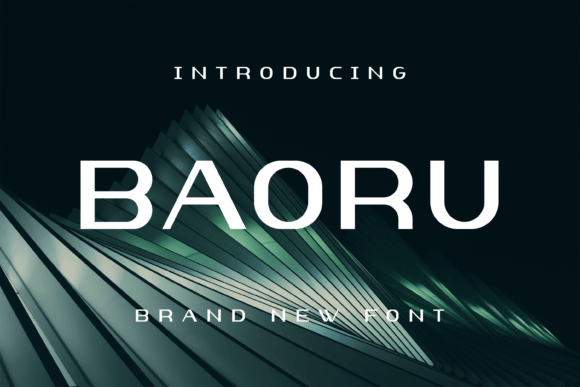
Unlock the Power of Baoru Font
You know that feeling when you’re working on a project and the perfect font just clicks? It’s like the entire design comes together, and you can’t imagine it any other way. For many designers, this moment is a game-changer – and it’s exactly what the Baoru Font is designed to deliver.
Baoru Font is a sleek and modern sans serif font that’s perfect for any project, from logos and branding to digital interfaces and publications. Its clean lines and versatile design make it an incredible asset to your font library, elevating your creations and taking them to the next level.
Whether you’re a seasoned designer or just starting out, Baoru Font is a valuable addition to your toolkit. Its ability to adapt to any style or theme makes it a go-to choice for designers looking to add a touch of sophistication and modernity to their work.
Baoru Font Key Features
- Font Family: Baoru Font is a sans-serif font family designed for modern and elegant typography.
- Size: Baoru Font comes in 8 font weights, ranging from Light to ExtraBold, to cater to diverse design needs.
- Unique Characteristic: The font features a unique blend of geometric and organic elements, resulting in a distinctive and modern aesthetic.
- Resolution: Baoru Font is designed for high-resolution displays, ensuring crisp and clear typography on screens and in print.
- Language Support: The font family supports multiple languages, including Latin, Cyrillic, and Greek scripts, making it a versatile choice for global designs.
Baoru Font Review
Overall, I’d say the Baoru font is a solid choice for designers looking for a modern, minimalist sans-serif font. It’s clean, crisp, and works well in both digital and print applications.
- Unique character: Baoru has a distinctive feel that sets it apart from more common sans-serif fonts like Helvetica or Arial.
- Legibility: The font is highly legible, making it perfect for body text or titles where readability is key.
- Flexibility: Baoru works well in a variety of contexts, from headings to body text, and even in logo design.
- Limited font weight options: Baoru only comes in two weights, which may limit its usability in certain design contexts.
- Lack of italic and bold-italic styles: This may make it harder to use Baoru for certain types of text, like quotes or emphasis.
While Baoru has some limitations, its unique character and high legibility make it a great choice for designers looking for a modern sans-serif font. With a little creativity, you can work around the limitations and make Baoru a valuable addition to your design toolkit.
For best results, use the Baoru Font in combination with other elegant fonts to create a sophisticated design.
For advanced users, the Baoru Font can be customized using Adobe’s advanced typography features.
For best results, use the Baoru Font in combination with other elegant fonts to create a professional design.
The Baoru Font is ideal for:
- Artistic and creative projects
Remember to experiment with different font combinations and styles to get the most out of the Baoru Font.
Alternatives to Baoru Font for Designers
The Great Vibes Font is a beautiful, elegant script font ideal for creating a sophisticated and luxurious atmosphere in designs. It’s perfect for use in branding, advertising, and editorial content. Great Vibes Font is a more elegant and refined alternative to Baoru Font, with a wider range of uses in formal settings.
Pacifico is a modern, elegant script font that works well for creating a sense of relaxation and calmness in designs. It’s ideal for use in branding, packaging, and editorial content. Pacifico Font is a more laid-back and casual alternative to Baoru Font, with a focus on creating a soothing atmosphere.
The Dancing Script Font is a lively, elegant script font that’s perfect for creating a sense of excitement and energy in designs. It’s ideal for use in branding, advertising, and social media content. Dancing Script Font is a more playful and dynamic alternative to Baoru Font, with a focus on creating a sense of movement and action.